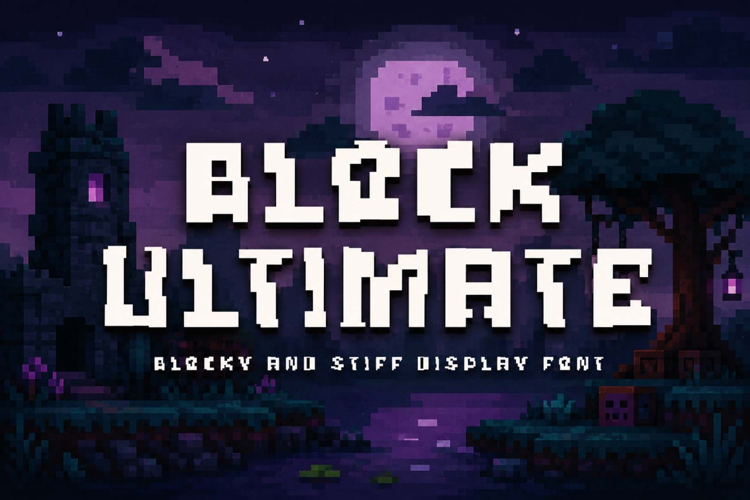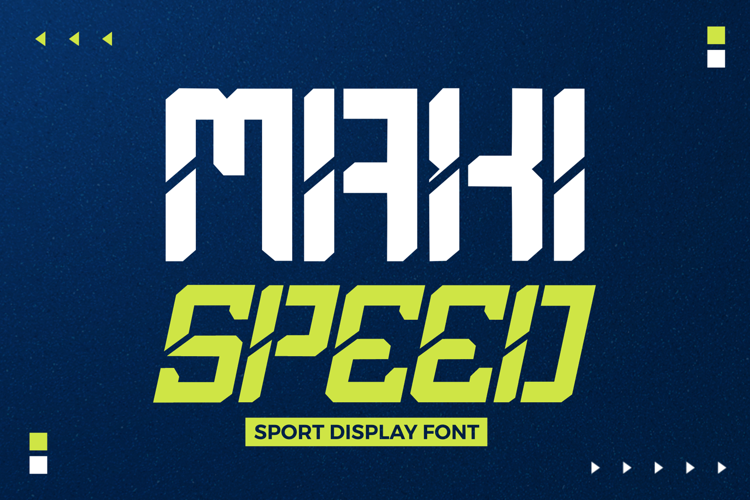
Ultimate Fonts & Graphics
Boost your creativity with this Ultimate Font & Graphics Bundle, a complete design pack crafted for creators, designers, and content makers. This bundle includes a versatile collection of 13 unique fonts, 5 elegant monograms, and 23 creative graphics — all carefully designed to help you create stunning visuals effortlessly.
From playful and modern styles to bold and decorative lettering, this bundle is perfect for a wide range of projects such as branding, logos, social media content, packaging, posters, invitations, and more.
13 High-quality Fonts (Playful, Decorative, Display & More)
5 Stylish Monogram Designs
23 Creative Graphic Elements
Suitable for branding, logo design, social media, print & digital projects